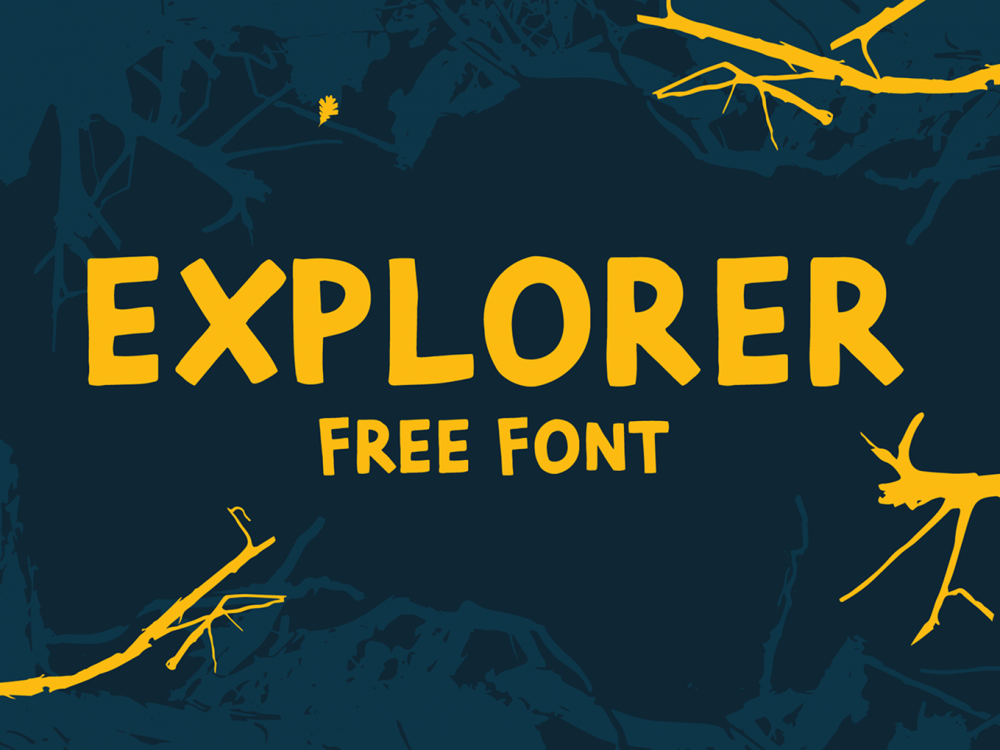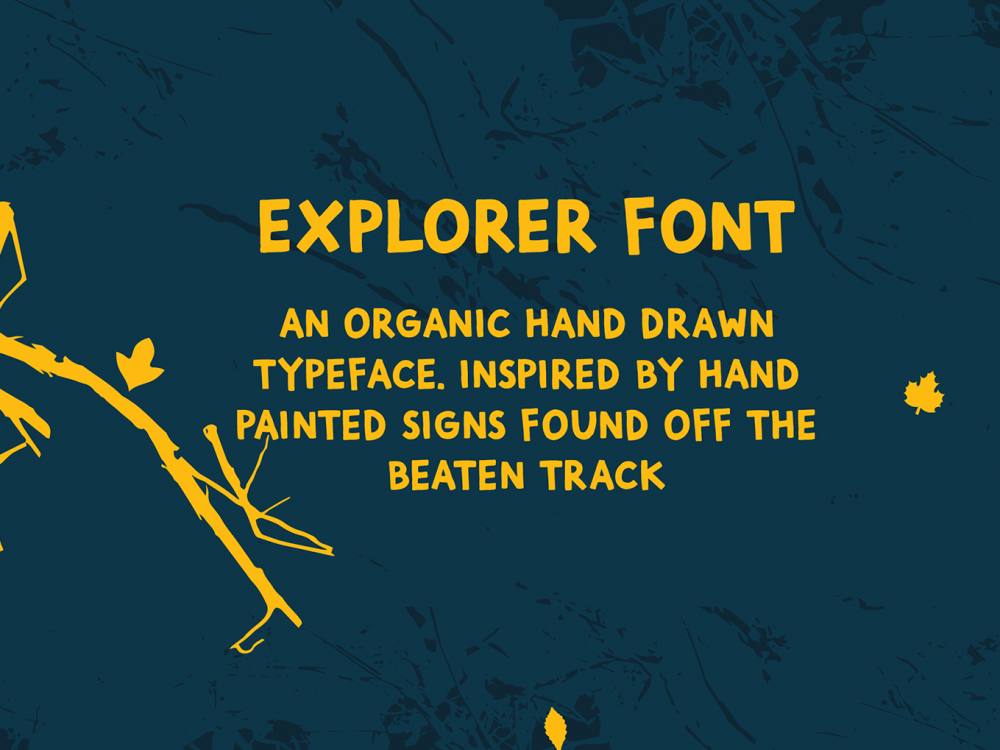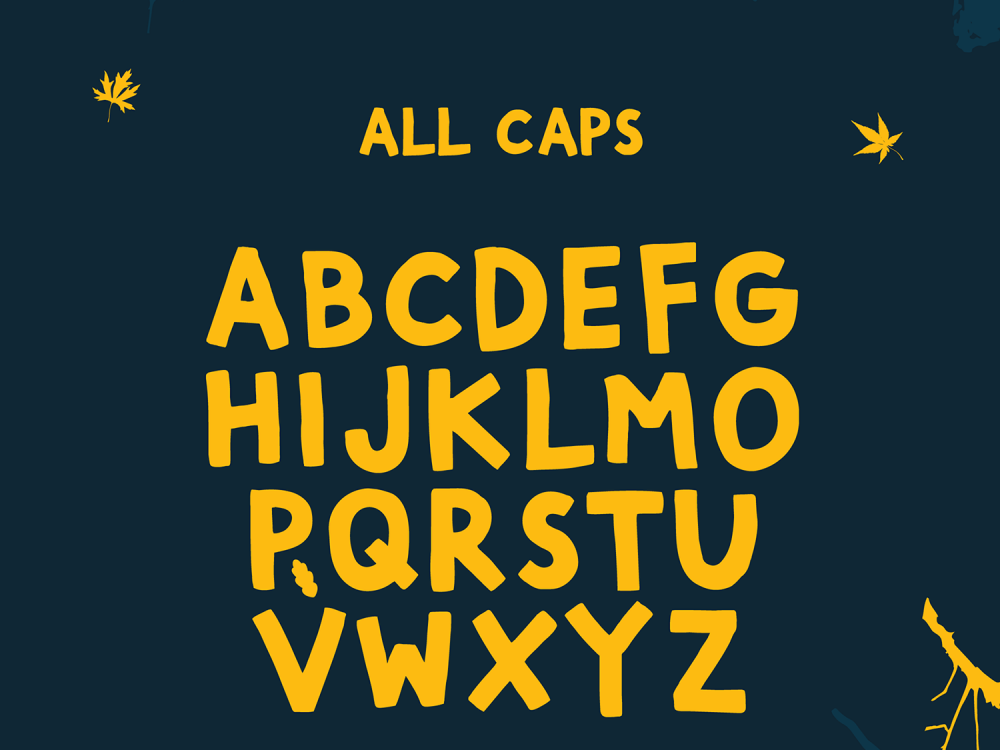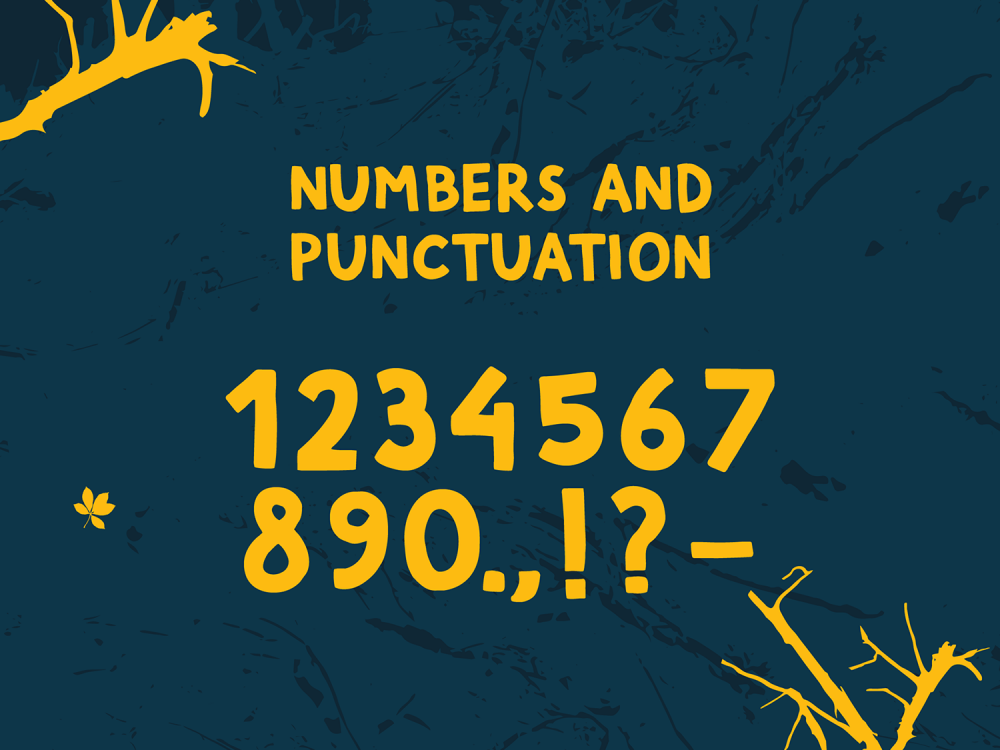
Explorer Free Font
Explorer Free Font is a handwritten font that features a fun style and simulates writing with a brush. This font is perfect for creating various design projects. Use this font to create posters, cards, invitations, flyers, prints, and more.